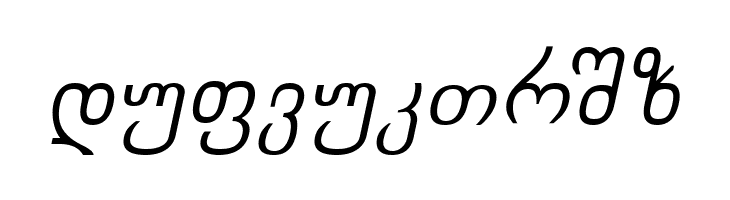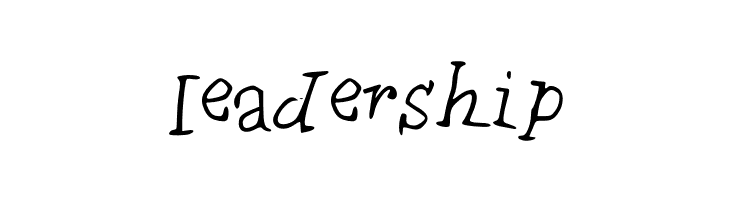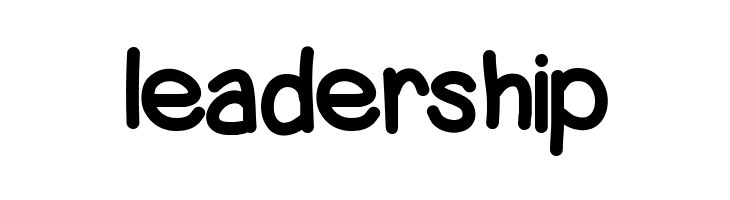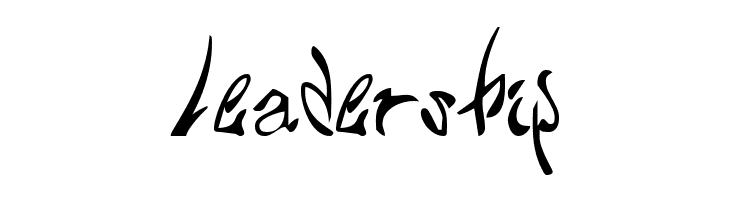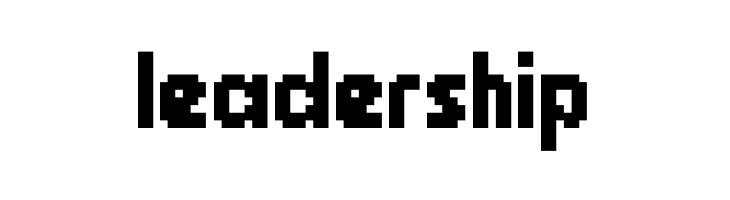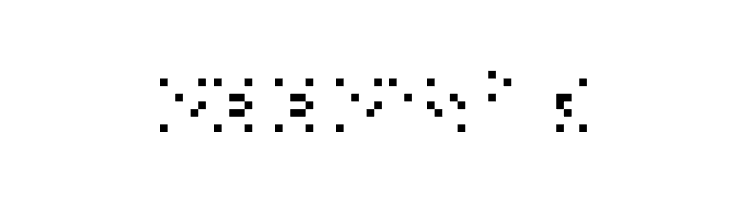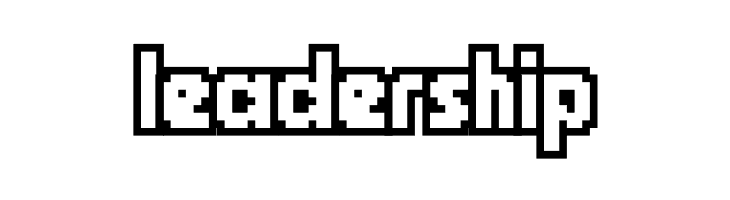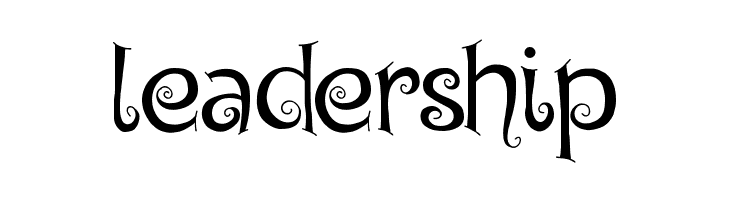
A bold, playful font with thick, rounded strokes and a whimsical style.
A bold, rounded font with a playful, retro style.
A bold, playful font with chunky, whimsical characters and a dynamic style.
A bold, pixelated font with a retro, video game-inspired style.
A bold, pixelated font with a retro digital style.
A bold, blocky outline font with a playful, retro style.
A bold, playful font with thick, rounded strokes and a hand-drawn feel.
A bold, playful script font with rounded strokes and a dynamic slant.
A playful, bold font with rounded edges and a friendly appearance.
A bold, angular font with a geometric and modern style.
A bold, dripping font with a dynamic and edgy appearance.
A dynamic, expressive handwritten font with fluid strokes and artistic flair.
A bold, distressed font with a rough, textured appearance.
A decorative Blackletter font with intricate details and a historical, Gothic style.
A display font made up of church-themed pictograms.
A playful, bubble-like font with outlined characters and a whimsical style.
A decorative Gothic-style font with intricate details and historical charm.
A traditional blackletter font with ornate, angular letterforms and historical elegance.
A bold, modern sans-serif font with clean lines and a slightly condensed style.
A modern, rounded sans-serif font with a clean and approachable style.
A dynamic and elegant script font with flowing, cursive letterforms.
A bold, flowing script font with a playful, artistic style.
A whimsical and decorative font with playful curls and swirls.
Decorative font with illustrated children in playful scenes.